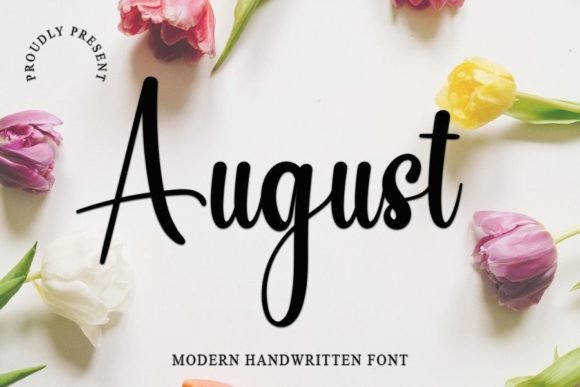
The August Font: A Timeless Beauty for Your Design Projects
I’ll never forget the time I was working on a project for a client who wanted a elegant and sophisticated look. I had spent hours browsing through font libraries, but nothing seemed quite right. That was until I stumbled upon the August font. Its beautiful, handwritten curves and elegant touch immediately caught my eye, and I knew I had found the perfect fit. In this article, I’ll share with you why I’m obsessed with the August font, its features, and how to use it to take your designs to the next level.
A Personal Review: What I Love About August Font
Here’s what makes the August font stand out:
• ✨ Elegant and sophisticated look that’s perfect for a variety of design projects
• 💫 Incredibly distinct and timeless style that sets it apart from other fonts
• 🎨 Versatile and can be used for a range of projects, from branding to wedding invitations
While the August font is amazing, there are a few things to keep in mind:
• ⚠️ Some users have reported that the font can be a bit tricky to pair with other fonts, so be prepared to experiment
• 🤔 The font doesn’t have a huge range of weights, so it may not be the best choice for projects that require a lot of variation
The Story Behind August Font
The August font was designed by a talented typographer who wanted to create a font that was both elegant and timeless. Inspired by classic calligraphy, the designer carefully crafted each letterform to ensure that the font would be both beautiful and legible. The result is a font that’s perfect for designers who want to add a touch of sophistication to their projects.
Author PiPi Creative
What is the August font best used for? The August font is perfect for a variety of design projects, including branding, wedding invitations, and social media graphics.
Is the August font suitable for body text? While the August font is beautiful, it’s best used for headlines and titles. For body text, you may want to choose a font that’s more legible.
Is the August font available in different weights? The August font may not have a huge range of weights, but it’s still versatile and can be used for a range of projects.